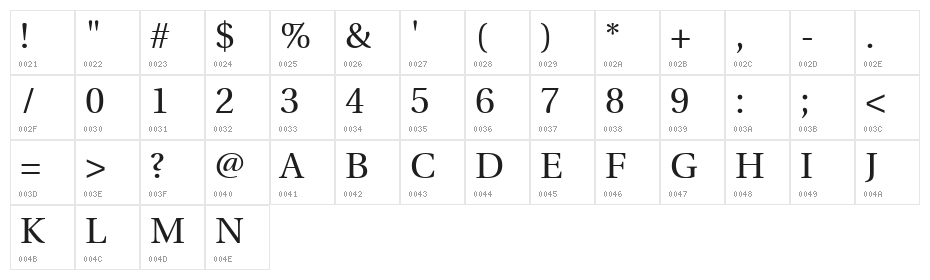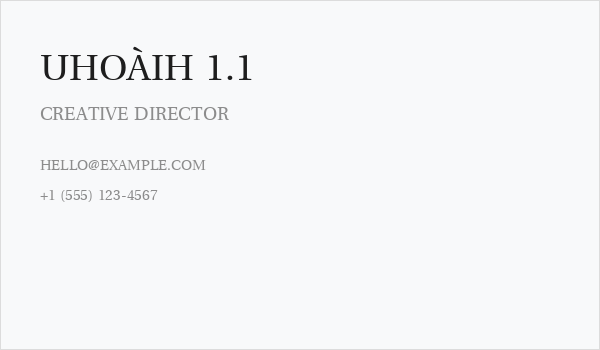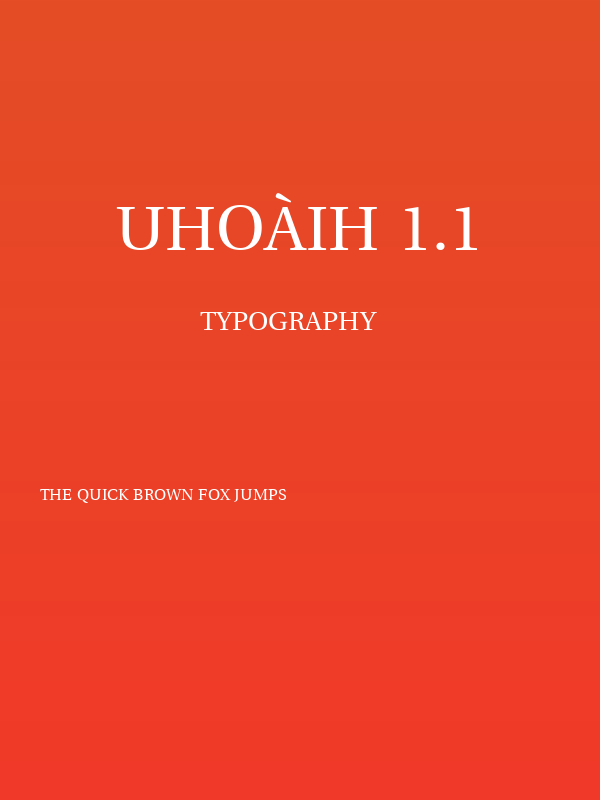
UHoàiH 1.1 Font
UHoàiH 1.1 Description
This font features a classic serif style with elegant and refined strokes. The characters exhibit a balanced proportion, with slightly elongated serifs that add a touch of sophistication. The uppercase letters are bold and commanding, while the lowercase letters maintain a consistent flow, enhancing readability. The numerals are clear and distinct, making them suitable for both display and text purposes. Special characters are well-integrated, maintaining the overall aesthetic of the font. The font's design is versatile, suitable for a range of applications from formal documents to creative projects.
| Proposed Projects | Ideal for formal documents, editorial design, branding, and invitations. |